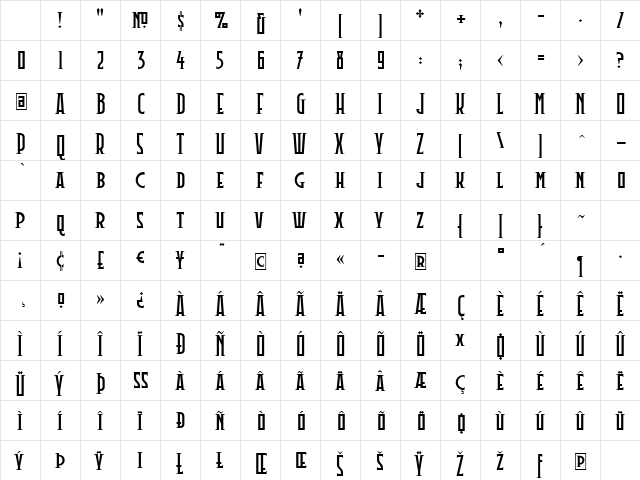
Pitshanger Initial Capitals Regular
Design Context for Pitshanger Initial Capitals
Pitshanger Initial Capitals is a composed and adaptable typeface that performs quietly and consistently across a wide range of design contexts.